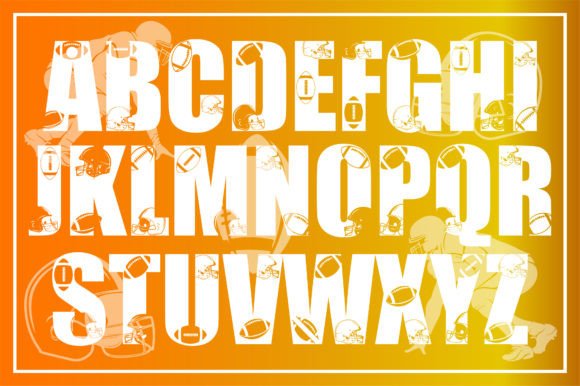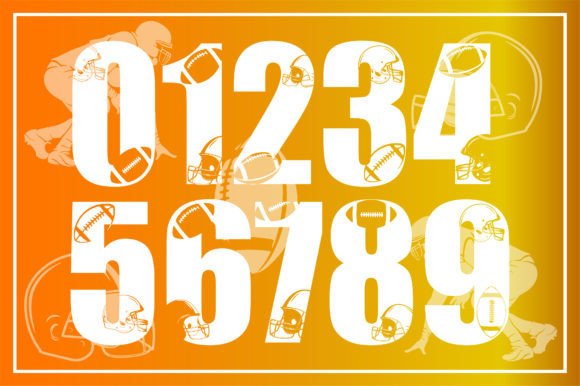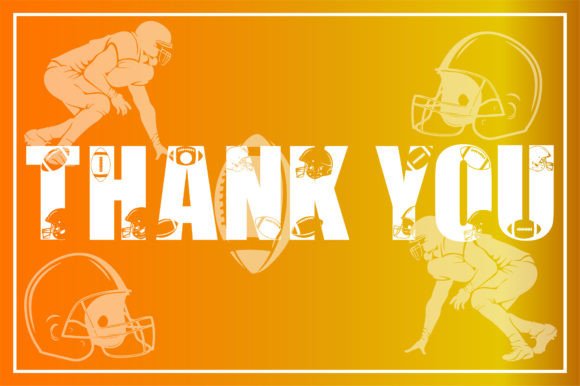
Introducing Football Font: The Ultimate Choice for Sports-Themed Designs
Are you looking for a font that can add a touch of excitement and playfulness to your designs? Look no further than the Football Font! This cool and chunky lettered font is perfect for children’s sporting events, sports-themed parties, and any design project that requires a fun and energetic vibe.
What Makes Football Font So Special?
Football Font is a decorative font that is specifically designed to bring a sense of fun and playfulness to your designs. Its chunky letters and bold lines make it perfect for headlines, titles, and any other text that needs to stand out. The font is ideal for children’s sporting events, such as football matches, soccer tournaments, and sports days. It’s also great for sports-themed parties, birthday cards, and invitations.
Key Features of Football Font
- Cool and Playful Design: Football Font has a unique and playful design that is sure to grab attention.
- Chunky Letters: The font features chunky letters that are perfect for headlines and titles.
- Bold Lines: The bold lines of the font make it easy to read and add a sense of energy to your designs.
- Perfect for Children’s Sporting Events: The font is ideal for children’s sporting events, sports-themed parties, and any design project that requires a fun and energetic vibe.
How to Use Football Font in Your Designs
- Headlines and Titles: Use Football Font to create eye-catching headlines and titles that will grab attention.
- Invitations and Party Decor: Use the font to create sports-themed invitations, party decorations, and other materials that will add a touch of excitement to your event.
- Social Media Graphics: Use Football Font to create social media graphics that will stand out from the crowd.
- Logos and Branding: Use the font to create logos and branding materials that will add a touch of personality to your brand.
Why Designers and Crafters Love Football Font
Football Font is a favorite among designers and crafters for several reasons:
- Easy to Read: The font is easy to read, even at small sizes, making it perfect for a variety of design projects.
- Highly Versatile: Football Font can be used in a variety of design projects, from sports-themed parties to logos and branding.
- Fun and Energetic: The font adds a touch of fun and energy to any design project, making it perfect for projects that require a playful vibe.
| Font Name | Football Font |
| Author | AvocadoSVG |